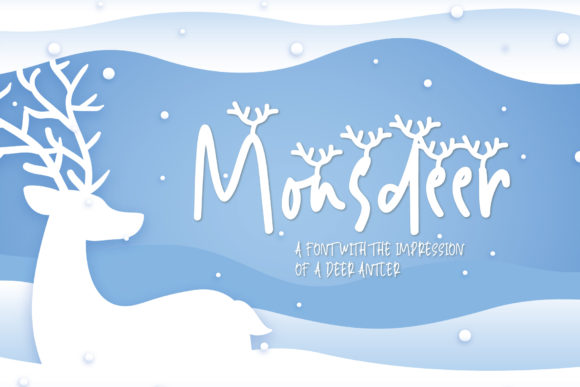
Immerse yourself in a font wonderland with Monsdeer Font, the ultimate display font for TV screens. Created by the Atjcloth Studio, Monsdeer is a treasure trove of captivating deer-themed characters that inject a whimsical charm into your designs. Be prepared to be enchanted!
Step into a world where imagination roams free. Monsdeer beckons you to unleash your creativity, inviting you to craft captivating logos that leap off the screen. Picture your brand adorned with a playful deer emblem, capturing the attention of your audience with its unique and memorable presence.
But Monsdeer's artistry extends beyond logos. Its beautiful stationary art transforms your words into captivating tales, adding a touch of magic to every letter. Envision wedding invitations graced with delicate deer motifs, or heartfelt greeting cards adorned with charming deer illustrations. Monsdeer elevates your stationary creations into cherished keepsakes that evoke joy and wonder.
Monsdeer's versatility extends to social media, where your posts will sparkle with a captivating charm. Its eye-catching nature commands attention, transforming your content into magnetic beacons that draw followers in. Watch as your likes and shares soar, fueled by the irresistible allure of Monsdeer's deer-themed characters.
And let's not forget the realm of greeting cards. With Monsdeer, your greetings take on a life of their own, becoming adorable expressions of love, friendship, and celebration. Delight your loved ones with cards that showcase whimsical deer characters, spreading smiles and warmth wherever they go.
Monsdeer's essence lies in its authentic feel, a touch of magic that breathes life into your designs. It's a font that captivates, a font that enchants, a font that transforms the ordinary into the extraordinary. Embrace Monsdeer and embark on a creative journey like no other!